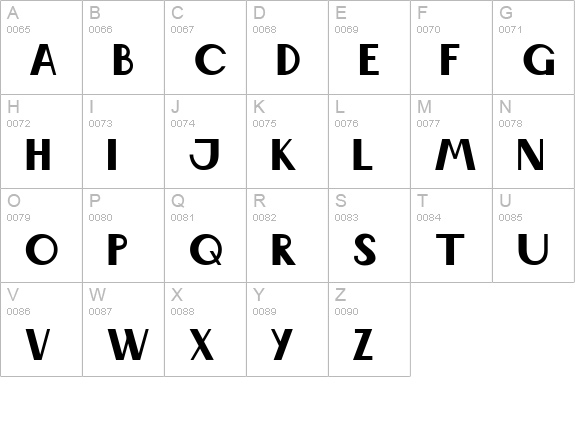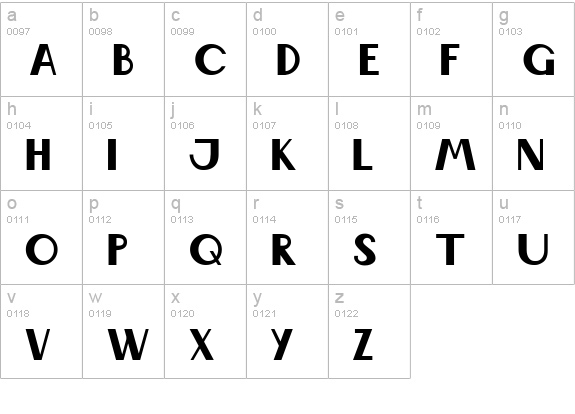
Wabene Font Details
Wabene font is a stunning typeface that effortlessly combines elegance, sophistication, and modernity. With its sleek lines and graceful curves, this font is perfect for adding a touch of class to any design project. Whether you're creating a logo, designing a website, or crafting a poster, Wabene font will elevate your work to new heights. One of the best things about Wabene font is that it is free. Yes, you read that right. This beautiful typeface is freely available to download at FontsMarket.com. It's a rare gem to find such a high-quality font that doesn't come with a price tag. So, whether you're a professional designer or a hobbyist, you can enjoy the benefits of Wabene font without breaking the bank. Not only is Wabene font free, but it also offers a wide range of features and options. With multiple weights and styles, you have the flexibility to choose the perfect variation that suits your project's needs. Whether you prefer a bold and impactful look or a more subtle and delicate touch, Wabene font has got you covered. The versatility of Wabene font is also worth mentioning. It is equally at home in both print and digital mediums. Its clean and crisp appearance ensures readability at any size, making it ideal for both headlines and body text. Additionally, its extensive character set supports multiple languages, allowing you to communicate your message effectively to a global audience. So, don't miss out on the opportunity to enhance your designs with the extraordinary Wabene font. Take advantage of its free availability at FontsMarket.com and unlock a world of possibilities. Whether you're a seasoned designer or just starting your creative journey, Wabene font is a must-have in your design toolkit. Download it today and experience the beauty and versatility of this remarkable typeface.